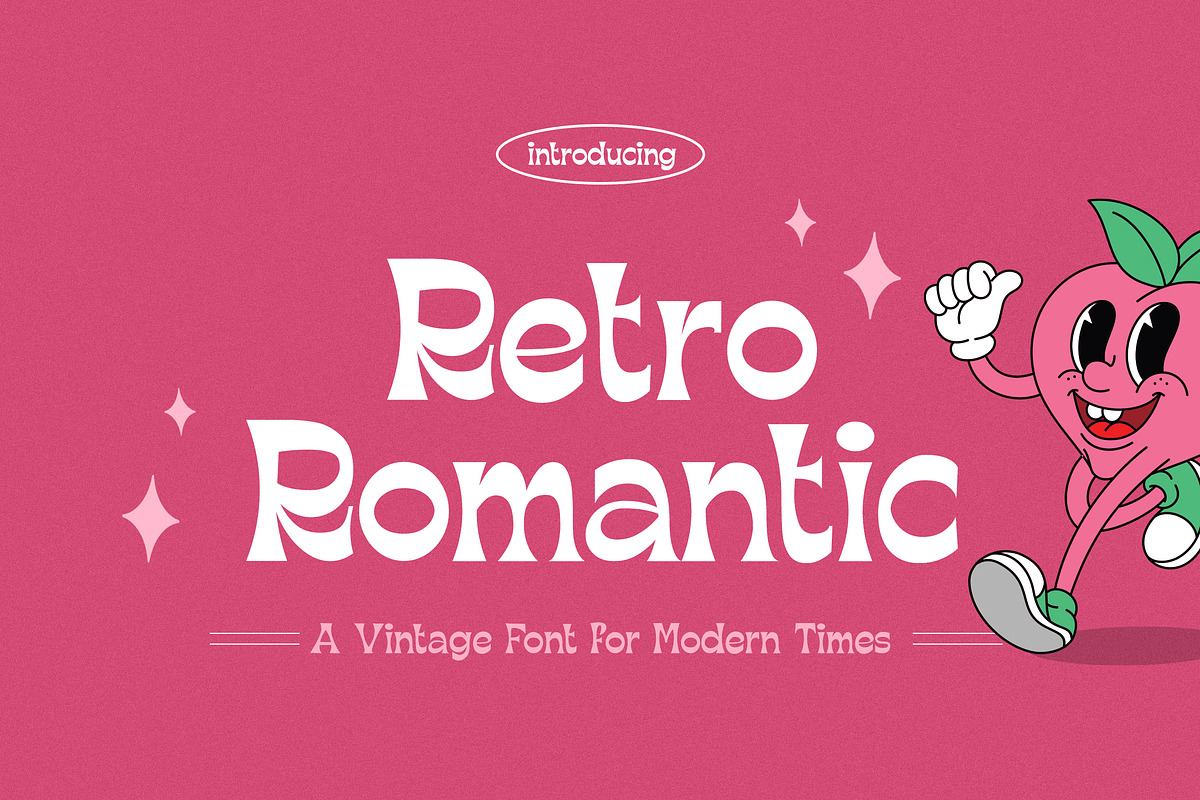
Retro Romantic Font Free Download is a dreamy, vintage-inspired typeface that blends 70s charm with heartfelt elegance. Featuring soft curves, groovy serifs, and a touch of whimsy, this font is perfect for love-themed designs, wedding invitations, Valentine’s Day cards, retro posters, and nostalgic branding.
Its playful yet graceful character makes it ideal for creatives who want to evoke emotion with a hint of vintage flair. Whether you're crafting a romantic quote, designing a boutique logo, or curating stylish social media content, Retro Romantic adds warmth, personality, and timeless beauty.